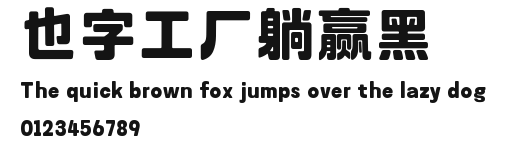
也字工厂躺赢黑 Preview
• Font Name: 也字工厂躺赢黑
• Full Font Name: 也字工厂躺赢黑
• Manufacturer: 也字工厂
About 也字工厂躺赢黑.TTF
也字工厂躺赢黑.TTF is a modern, elegant sans-serif font designed for ultimate readability and visual harmony. Perfect for branding, headlines, web design, and print materials.